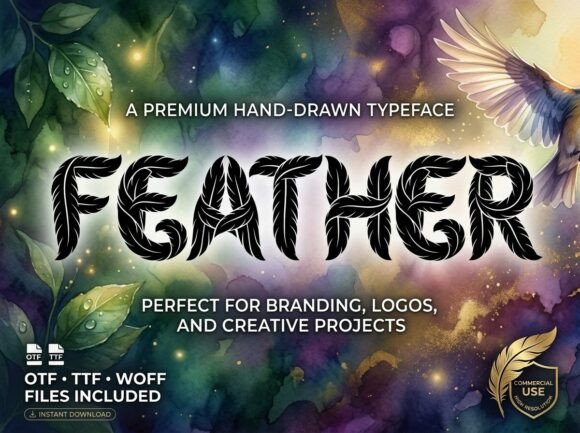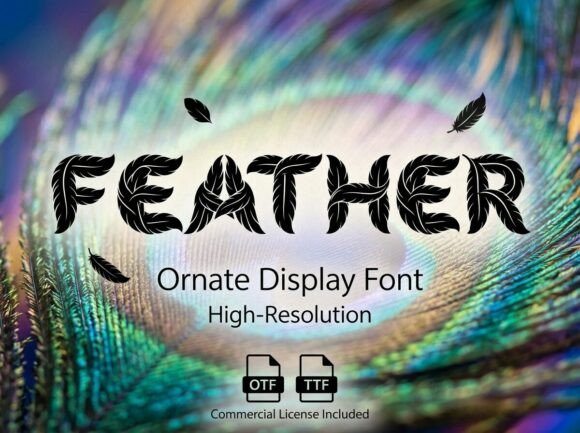
The Designer’s Delight: Exploring the Elegance of Feather Font
I still remember the design project that led me to discover Feather Font. I was working on a branding project for a wellness boutique, and I was struggling to find the perfect font that captured the essence of natural elegance and luxury. The client wanted a font that would convey a sense of organic sophistication, and I was determined to find it. That’s when I stumbled upon Feather Font, and it was love at first sight! ✨
A Personal Review: What I Love About Feather Font
Feather Font is a breathtaking display typeface that has captured my heart with its unique blend of natural avian aesthetics and modern luxury branding. Here’s what I love about it:
- ✨ Organic elegance: Feather Font features classic, high-contrast letterforms with rhythmic, hand-illustrated feather patterns layered into a woven composition that forms the spine of every character.
- ✅ Medium structural weight: The font has a perfect balance of elegance and readability, making it suitable for a wide range of design applications.
- 🌿 Ornamental personality: Feather Font’s unique feather patterns add an extra layer of sophistication and whimsy to any design.
While Feather Font is a stunning addition to any design project, there are a few quirks to keep in mind:
- 🤔 Limited use cases: Due to its ornamental nature, Feather Font may not be suitable for body text or long-form content.
- ⚠️ Glyph limitations: Some users have reported issues with certain glyphs not displaying correctly in certain software.
Feather Font was inspired by the beauty of nature and the world of avian aesthetics. The designer wanted to create a font that would capture the essence of luxury and sophistication, while also evoking the organic, natural world. The result is a font that’s both elegant and whimsical, perfect for designers looking to add a touch of personality to their work.
| Font Name | Feather Font |
| Author | clipartguru |
| What is Feather Font best suited for? | Feather Font is perfect for independent wellness boutique identities, boutique organic skincare logos, premium poetry book covers, and high-impact social media headers. |
| Can I use Feather Font for body text? | While Feather Font is a beautiful font, it’s not recommended for body text due to its ornamental nature and limited readability. |
| Is Feather Font available in different weights? | Feather Font is available in a medium structural weight, but it’s not recommended for use in multiple weights due to its unique design. |